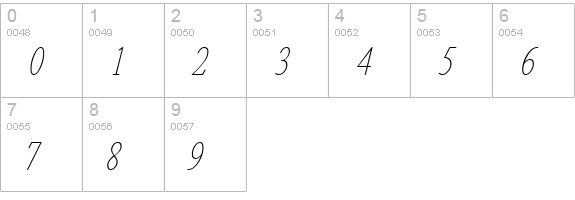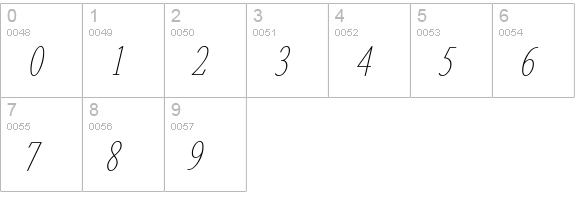
Revelation BTN Cond Lt Oblique is a distinctive, condensed-width, italic variant in the Revelation typeface family \xE2\x80\x94 well suited to design and typography projects.
Revelation BTN Cond Lt Oblique is a stunning font that exudes elegance and sophistication. Its slender and slanted design captures attention and adds a touch of modernity to any project. This font's unique combination of condensed letterforms and oblique angles creates a visually striking appearance that sets it apart from the rest. With Revelation BTN Cond Lt Oblique, your designs will stand out from the crowd, whether it's for branding, headlines, or any creative endeavor. Its clean lines and sleek curves make it highly versatile, allowing it to be used in a variety of contexts without losing its impact. The best part? Revelation BTN Cond Lt Oblique is free! You can easily download this font from FontsMarket.com, a trusted source for high-quality fonts. By making this font freely available, the creators have made it accessible to designers and enthusiasts alike, empowering them to bring their visions to life without any barriers. So why wait? Elevate your designs with Revelation BTN Cond Lt Oblique and make a lasting impression. Download it for free at FontsMarket.com and unlock a world of possibilities.